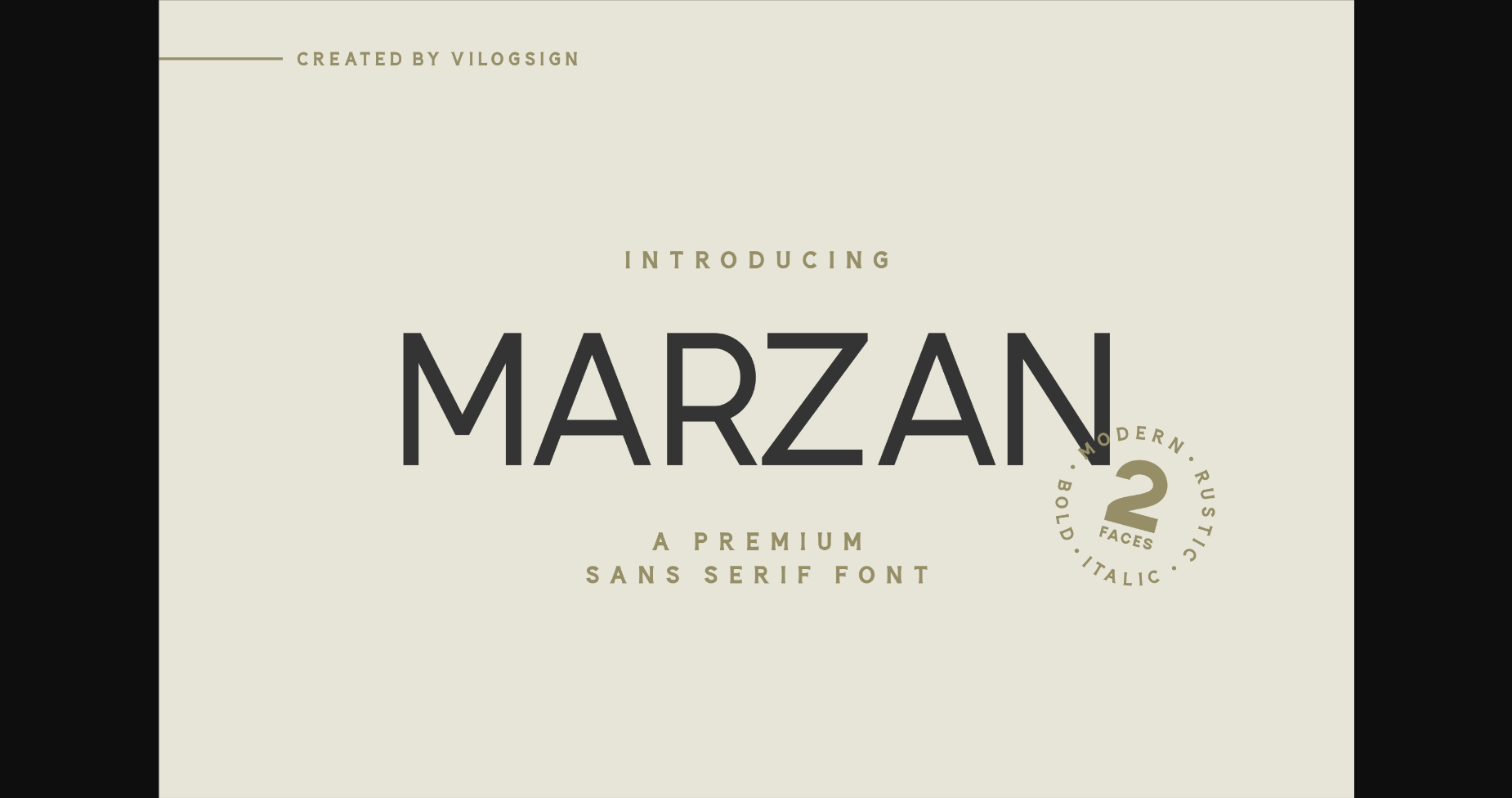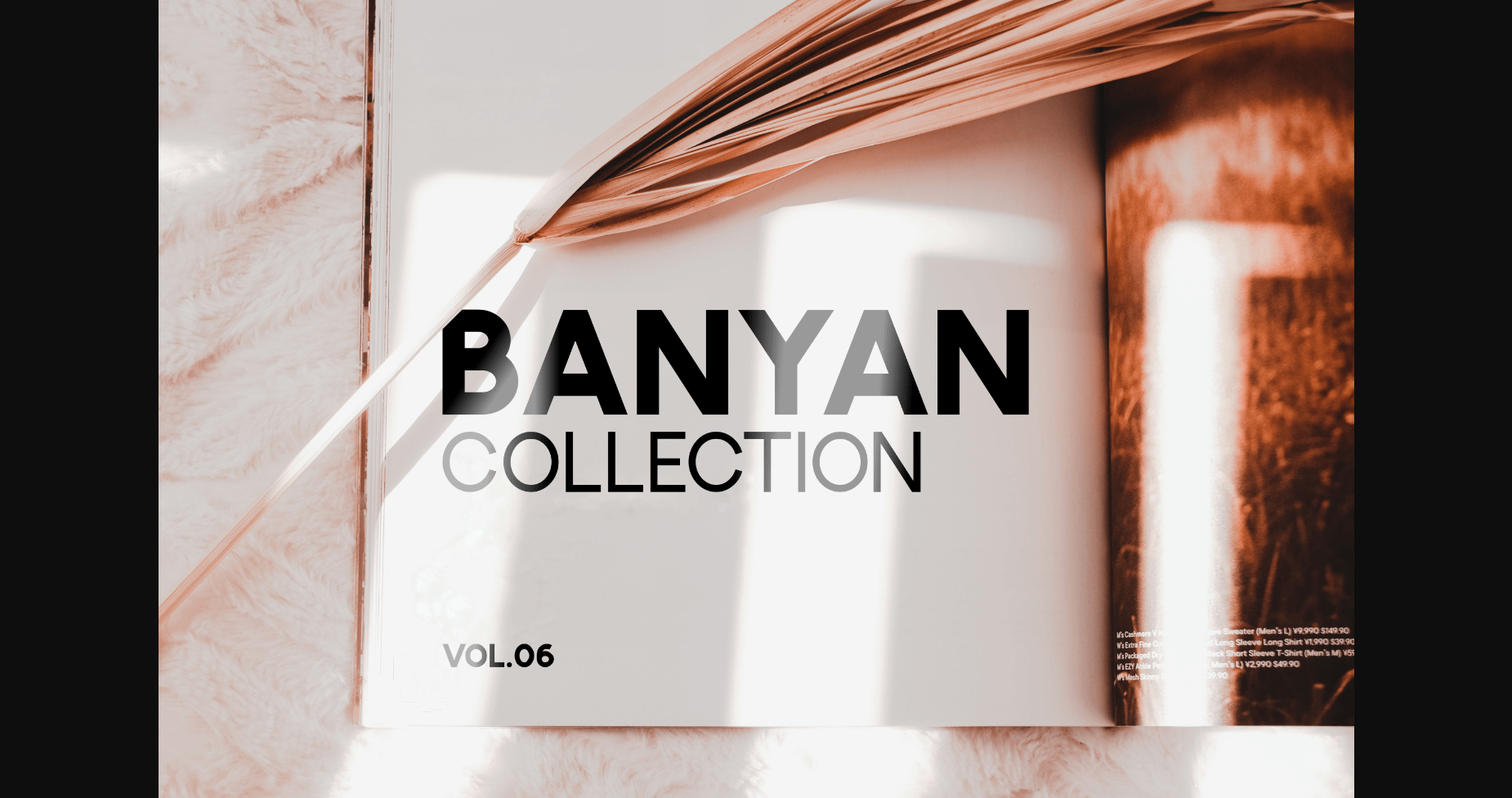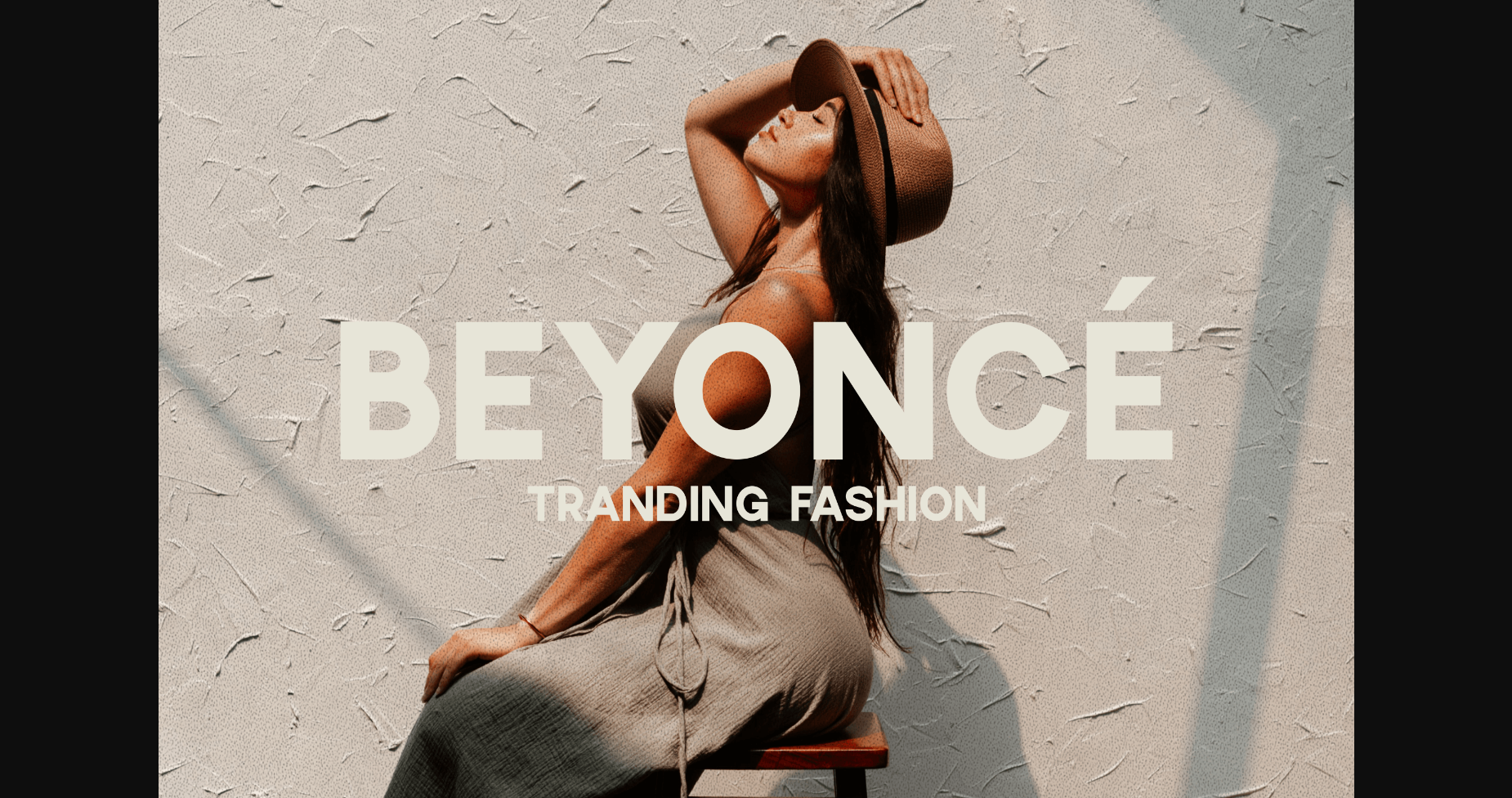
About Marzan Font
Marzan is a sans serif font that comes with textures to make it look vintage.
This type of font is perfectly made to be applied especially to branding and other various formal forms such as labels, logos, magazines, books, packaging, fashion, make-up, stationery, novels, labels, or any type of advertising purpose.